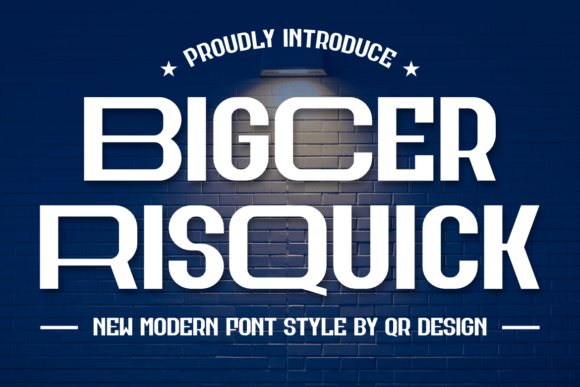
The Bigcer Risquick Font: A Game-Changer for Designers and Creators
I’ll never forget the time I was working on a project for a client who needed a bold, eye-catching font to make their brand stand out. I spent hours scouring the internet for the perfect font, but nothing seemed quite right. That was until I stumbled upon Bigcer Risquick. With its strong, clean lines and generous spacing, this font was exactly what I needed to bring my client’s vision to life. In this article, I’ll share my experience with Bigcer Risquick, its features, and how to make the most of it in your designs.
A First Impression: What Makes Bigcer Risquick Special
Bigcer Risquick is a wide sans serif font that exudes strength and stability. Its bold, clean lines and generous spacing make it perfect for headlines, titles, and branding materials. The simple yet impactful design of Bigcer Risquick makes it ideal for a range of applications, from posters to website design. Its bold and commanding presence makes a statement, while its clean and modern look adds a touch of sophistication to any project.
What I Love About Bigcer Risquick
- ✨ Versatility: Bigcer Risquick is incredibly versatile and can be used for a wide range of projects, from print to digital.
- ✅ Legibility: The font is highly legible, even at smaller sizes, making it perfect for body text and captions.
- 💡 Instant Impact: The bold, commanding presence of Bigcer Risquick makes an instant impact and grabs the viewer’s attention.
- 📈 Scalability: The font scales beautifully, from large headlines to smaller text, without losing its integrity.
While Bigcer Risquick is an excellent font, there are a few things to keep in mind:
- 🤔 Limited Stylistic Options: Bigcer Risquick has a simple design, which can be limiting for designers looking for a font with multiple stylistic options.
- ⚠️ Overuse: As with any bold font, there’s a risk of overusing Bigcer Risquick. Make sure to balance it with other fonts and design elements.
Bigcer Risquick was designed with the goal of creating a font that’s both strong and sophisticated. The designer, inspired by modern architecture and industrial design, aimed to create a font that’s both bold and refined. The result is a font that’s perfect for designers and creators who want to make a statement.
Q: What is Bigcer Risquick?
A: Bigcer Risquick is a wide sans serif font that’s perfect for headlines, titles, and branding materials.
Q: Is Bigcer Risquick suitable for body text?
A: While Bigcer Risquick is highly legible, it’s primarily designed for headlines and titles. For body text, consider using a font with a more traditional design.
Q: Is Bigcer Risquick available in different styles?
A: Bigcer Risquick has a simple design, but it’s available in different weights and styles, making it versatile for various design applications.